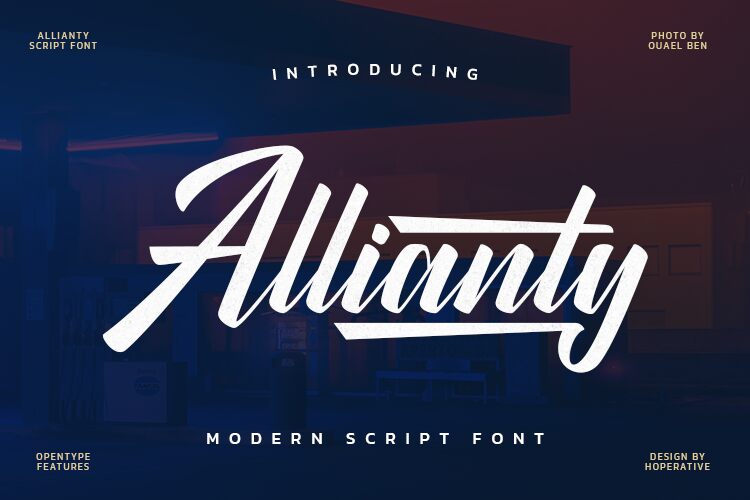
Allianty by Hoperative is a stunning modern calligraphy semi-light font, perfect for adding elegance and sophistication to your projects. Its semi-condensed width allows for optimal space-saving while preserving its exquisite details. Allianty is versatile enough to suit various projects such as wedding invitations, branding materials, social media graphics, packaging designs, and more. Its unique style blends traditional calligraphy with a contemporary twist, making it an excellent choice for those who want to stand out from the crowd. Add a touch of glamour to your next project with the Allianty semi-light font by Hoperative!